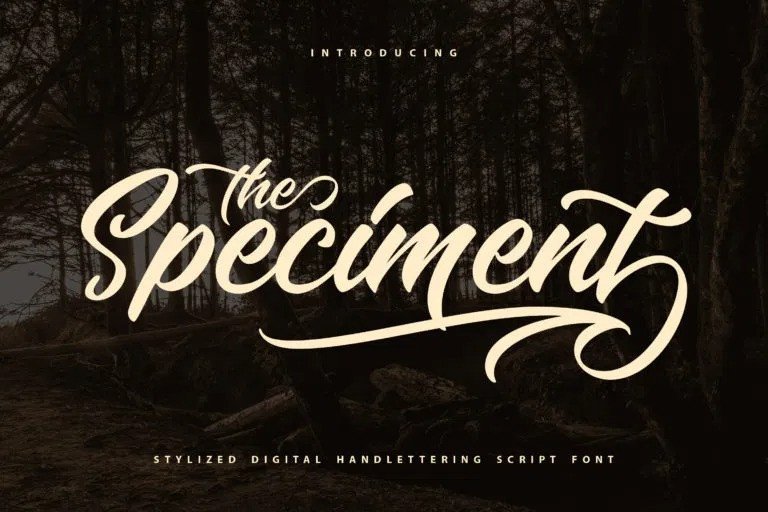
The Speciment Font
The Speciment Font is a Beautiful handwritten fonts with strong characters are now here to accompany your design projects. You can apply it to wedding designs, logos, quotes, social media posts, video content display etc. See some of the previews above for reference.